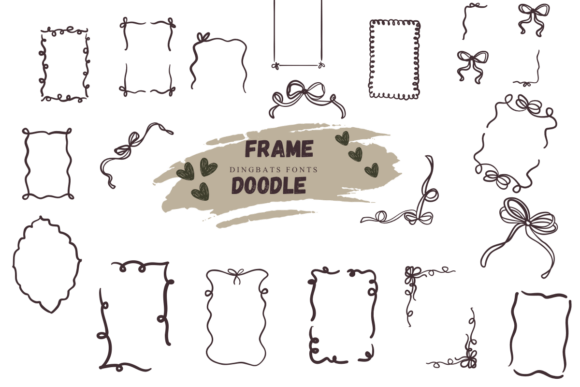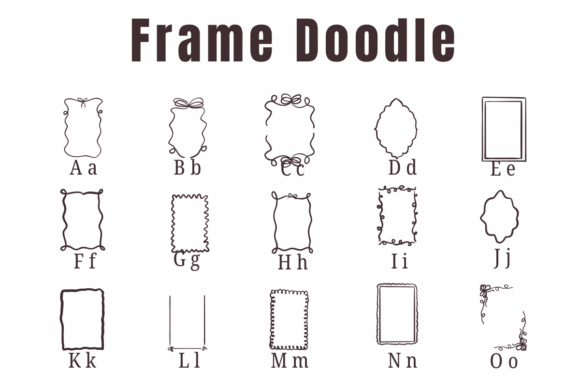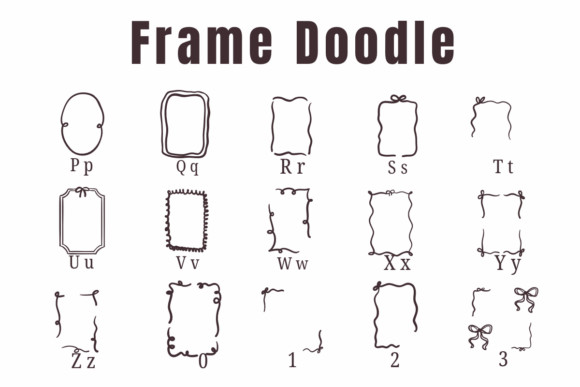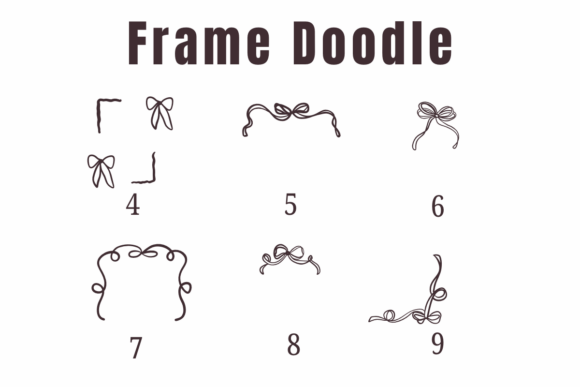
Frame Doodle Font
About the Frame Doodle Font
Elevate your designs with Frame Doodle Font, a font that combines sophistication with readability. Frame Doodle is a dingbats font with a sketch style. This font can enhance your creative projects such as wedding invitations, DIY, crafts, decorations, logos, and many other creative ideas.
Frame Doodle’s sketched style works best for headlines, short text blocks, logos, and branding elements where a hand-drawn, informal feel is desired. It’s ideal for projects emphasizing craft, creativity, or a playful, youthful aesthetic. Avoid using it for large amounts of body text or UI elements; its informal nature can hinder readability in extended passages.
The font’s personality is undeniably playful and friendly. To balance this, pair Frame Doodle with a clean sans-serif like Open Sans for body text, or a more structured serif like Merriweather for a sophisticated contrast. For a bolder look, consider pairing it with a geometric sans-serif such as Montserrat.
Consider Frame Doodle for brands targeting a young, creative demographic, particularly in industries like handmade crafts, children’s products, or cafes. The font’s charming informality will enhance the visual appeal of logos, packaging, and promotional materials for such businesses.